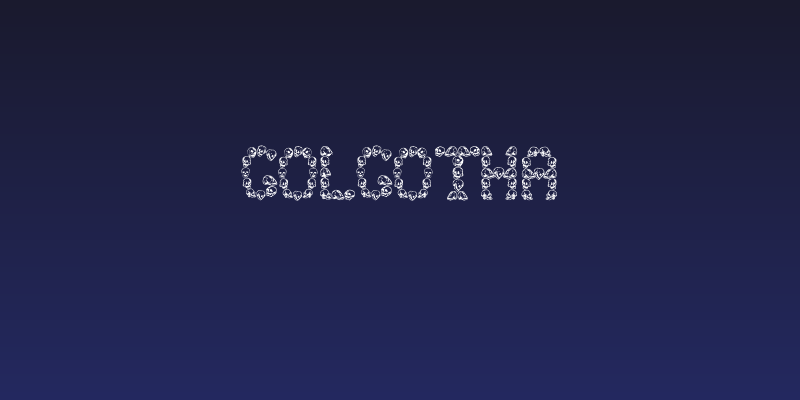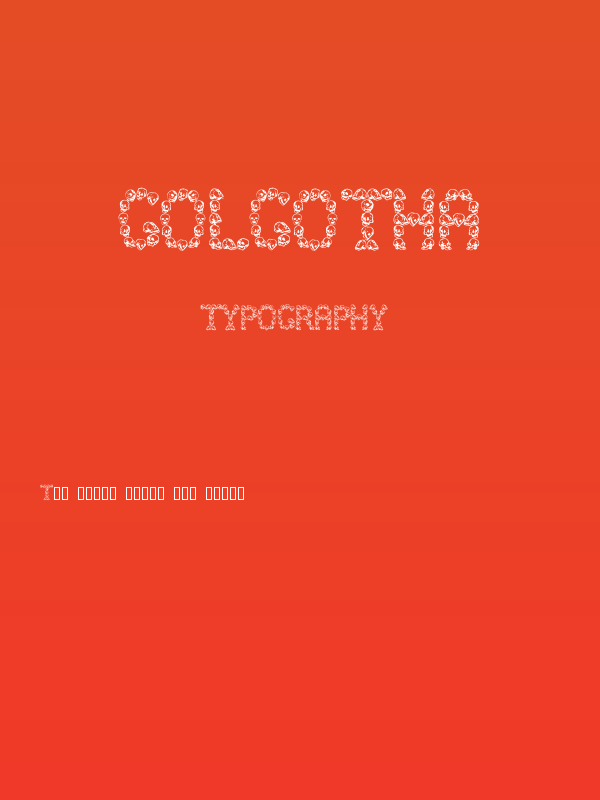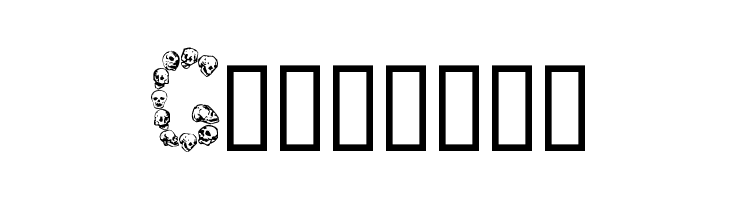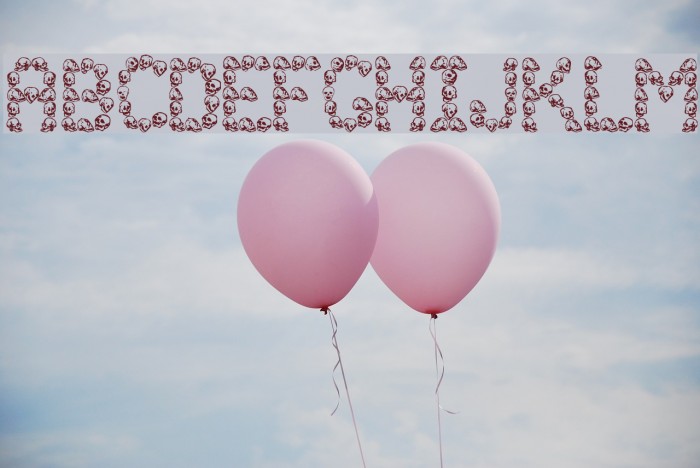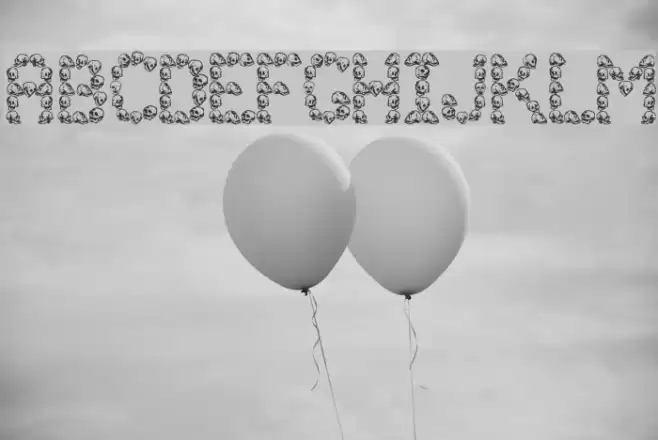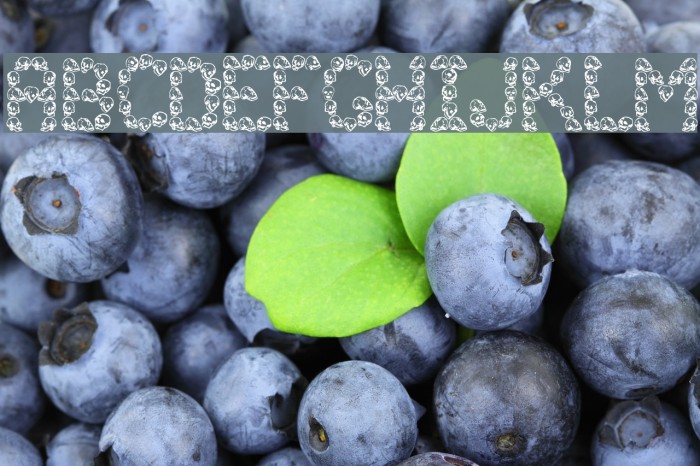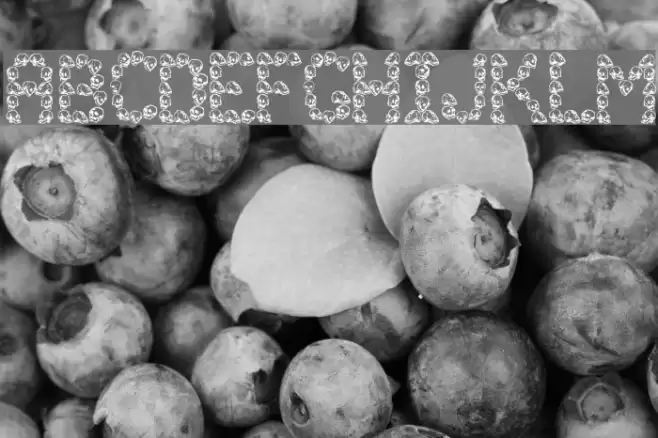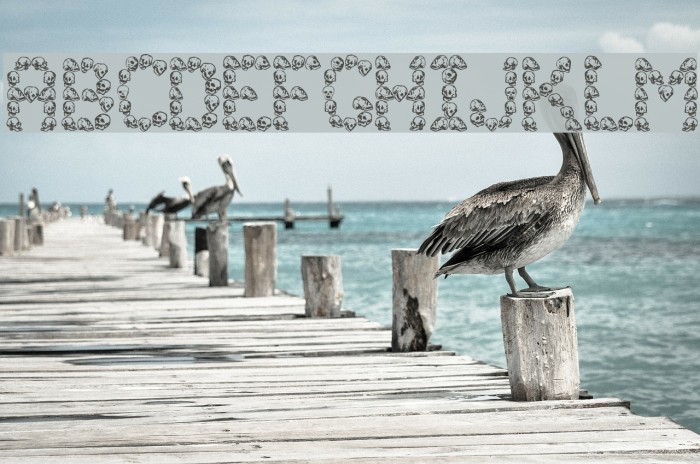
Golgotha Font
| Общий стиль | Gothic, Edgy, Artistic |
| Область применения | Logos, Posters, Album Covers |
| Рекомендуемые проекты | Ideal for album covers, horror-themed posters, Halloween invitations, and edgy branding projects. |